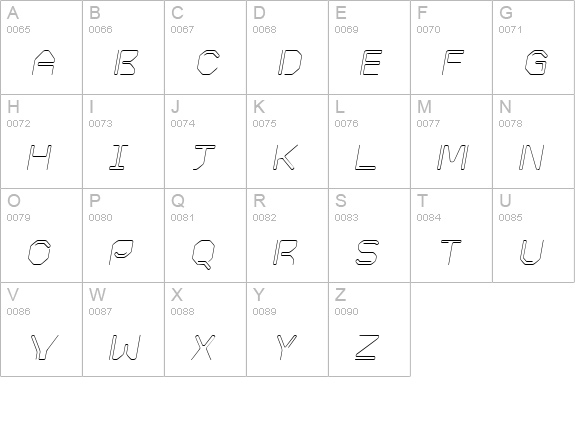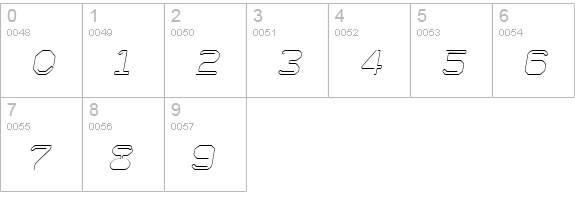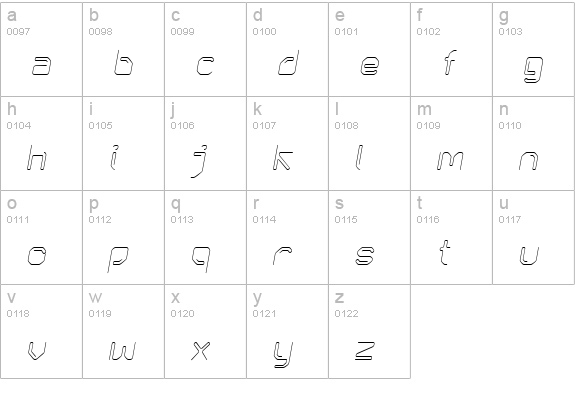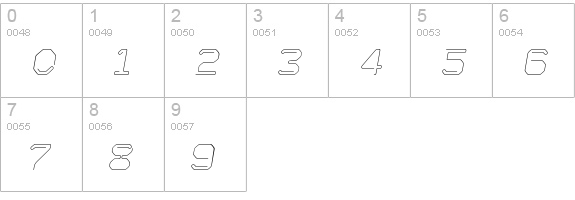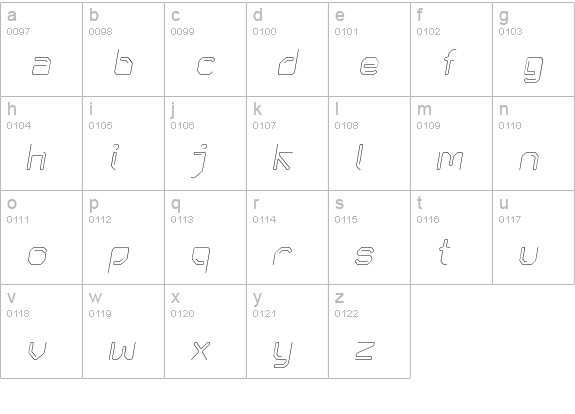
KneeonLight Italic Font Details
KneeonLight Italic is a distinctive, italic variant in the KneeonLight typeface family \xE2\x80\x94 well suited to design and typography projects.
KneeonLight Italic is a captivating and versatile font that effortlessly combines elegance with a touch of playfulness. Its smooth and flowing curves exude a sense of sophistication, making it perfect for projects that require a refined and stylish appearance. This font is designed with a unique italic style that adds a dynamic and energetic element to any design. Whether used for branding, editorial work, or web design, KneeonLight Italic will make a lasting impression on your audience. One of the most remarkable aspects of KneeonLight Italic is that it is freely available to download at FontsMarket.com. This means that you can take advantage of its beauty and charm without any cost. It's a font that truly embodies the spirit of creativity and accessibility, allowing designers of all backgrounds to experiment and express themselves. With its wide range of characters and extensive language support, KneeonLight Italic is a versatile font that can be used for various design projects. Its legibility and clarity make it suitable for both large headlines and small body text, ensuring that your message is delivered with utmost clarity. Download KneeonLight Italic from FontsMarket.com today and let your creativity shine. Whether you're designing a logo, creating a poster, or crafting a website, this font will elevate your work and add that extra touch of sophistication. Enjoy the freedom to express yourself and make a lasting impression with KneeonLight Italic.